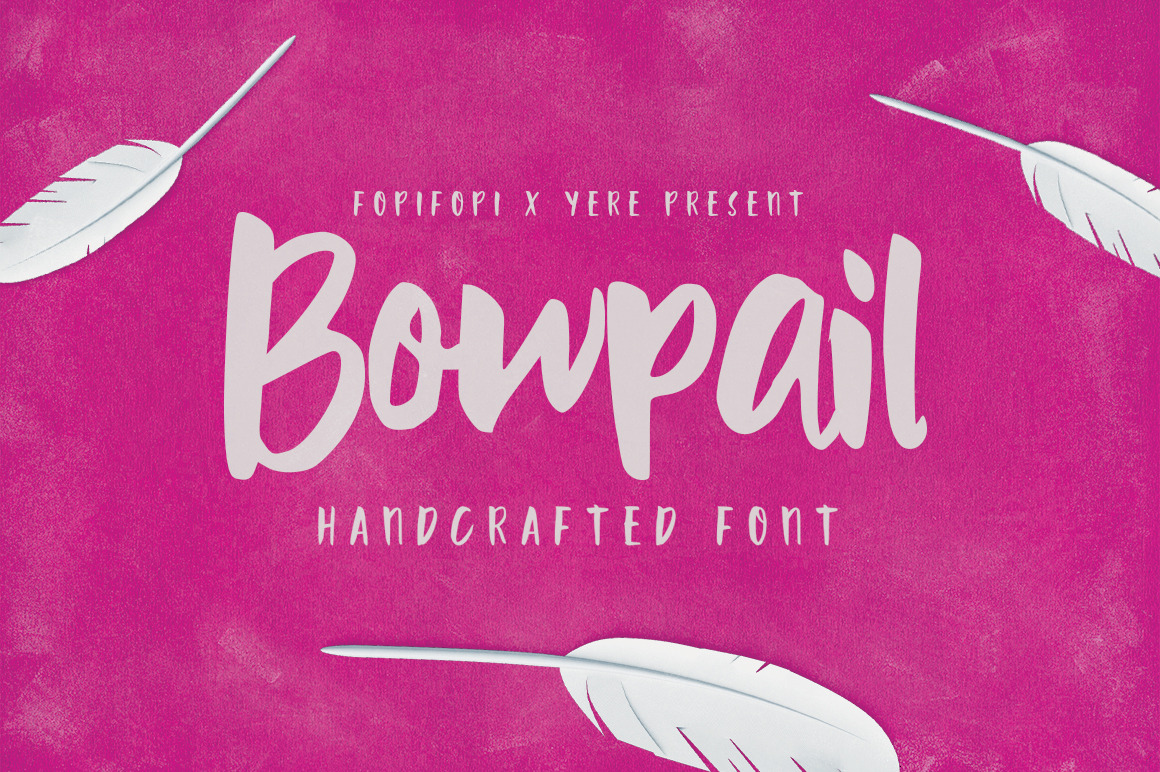
Heeeeey, artsy people! We’re so excited about this collaboration with my friend Yeremia. We named it Bowpail.
BOWPAIL Font is an handcrafted typeface, inspired by the handwritten of some artist. You can use BOWPAIL Font in any settings; books, tee design, titling on movie, poster, quote work, etc.
The space is your limit...! If you fancy artsy-craftsy elements in your design, this is your type of font. Don’t miss it.
- Some stylistic set